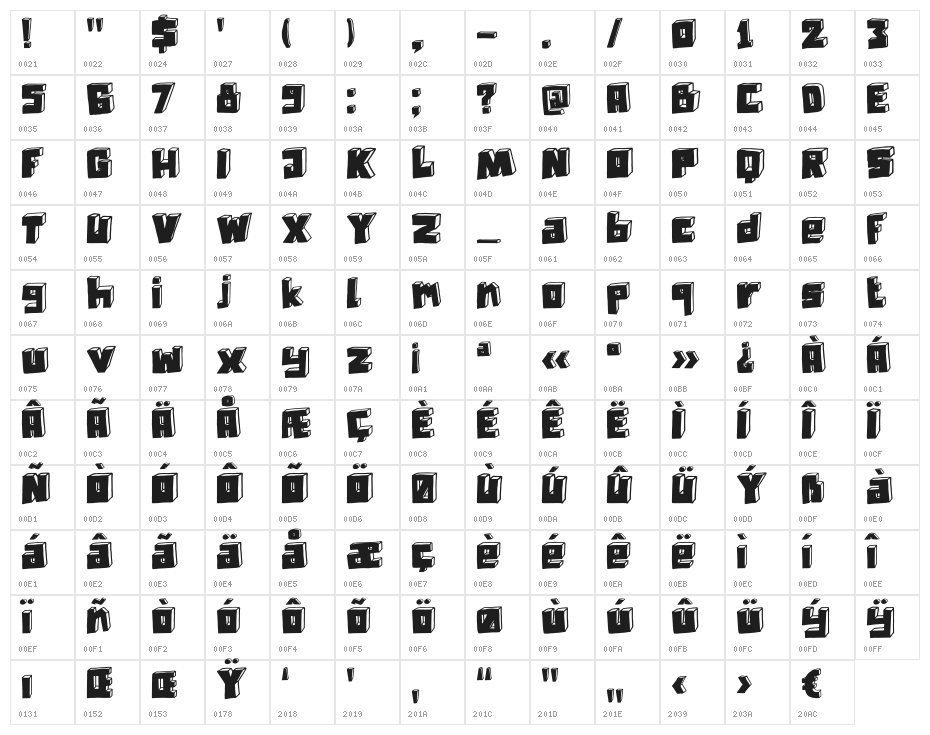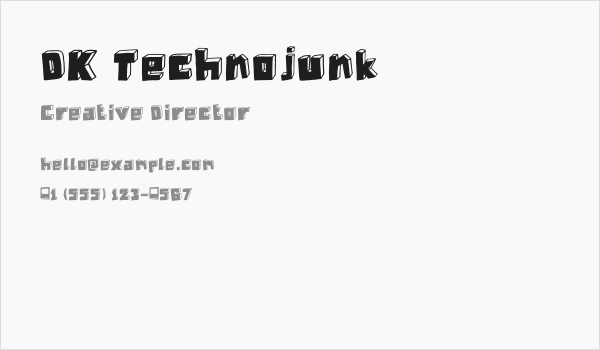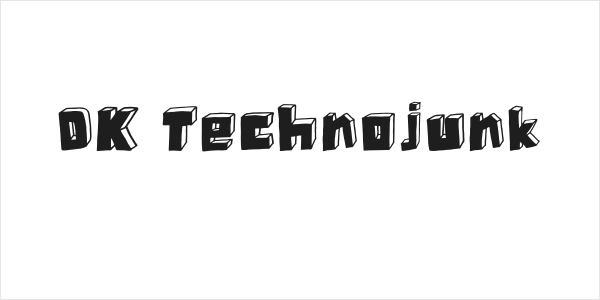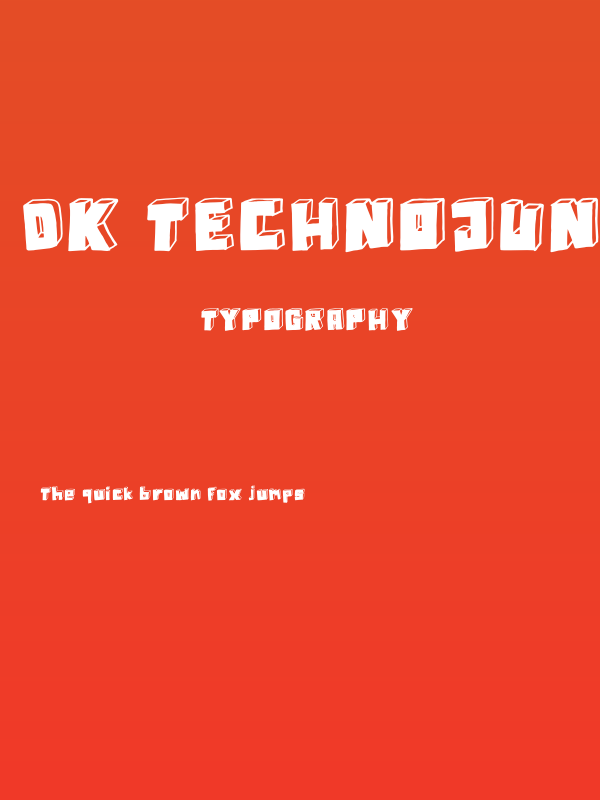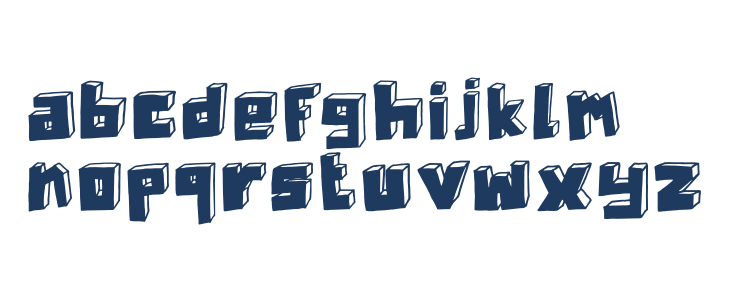
DK Technojunk Font
DK Technojunk Description
This font features a bold, three-dimensional style with a distinct, blocky appearance. Each character is designed with a shadow effect, giving it a dynamic and futuristic look. The letters are uppercase and lowercase with consistent geometric shapes, creating a cohesive and modern aesthetic. The numbers and special characters follow the same design principles, ensuring uniformity across all glyphs. This font is ideal for projects that require a strong visual impact, such as technology-themed designs or digital artwork.
| Proposed Projects | Ideal for technology-themed designs, digital artwork, video game graphics, and modern branding. |